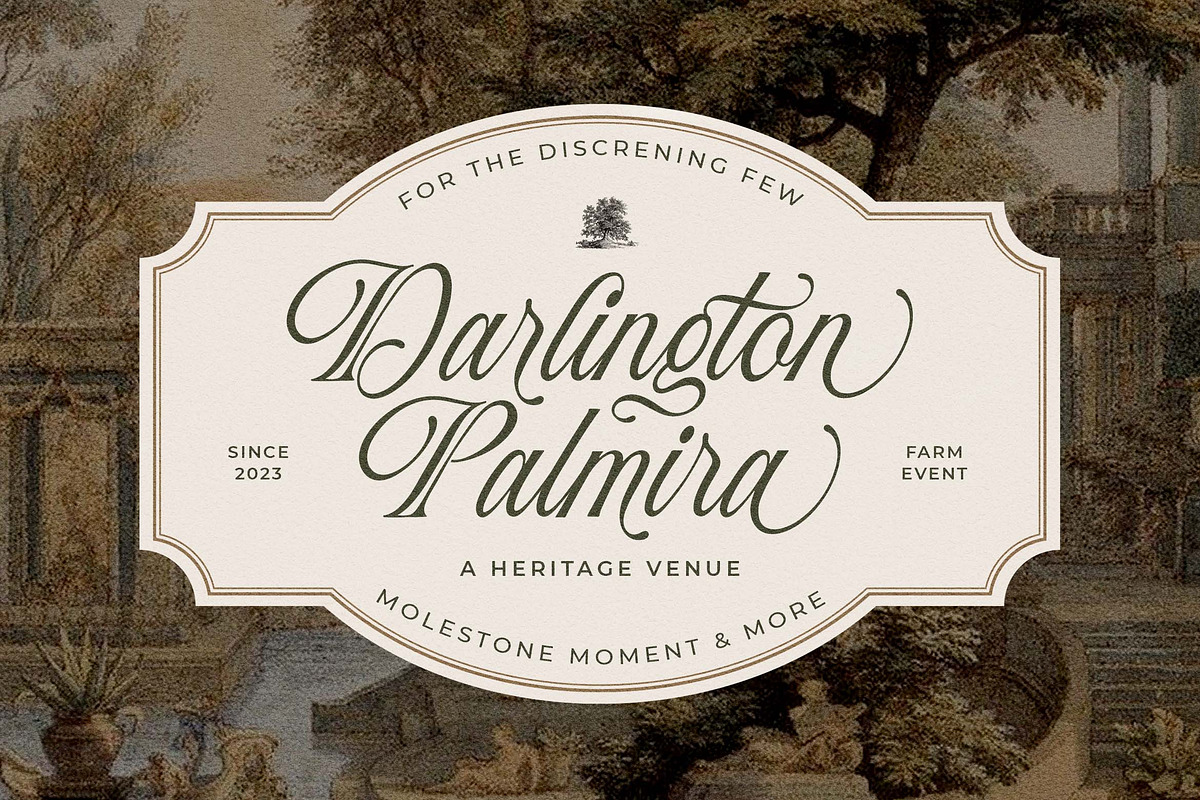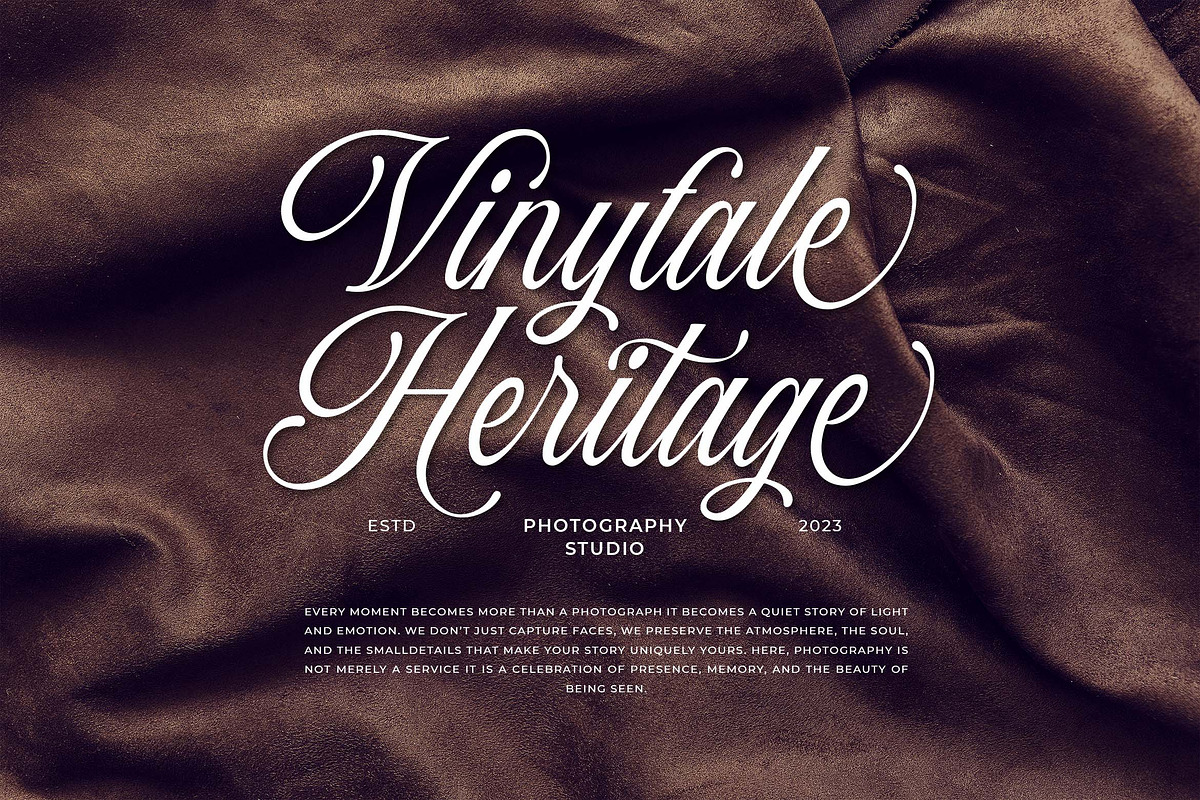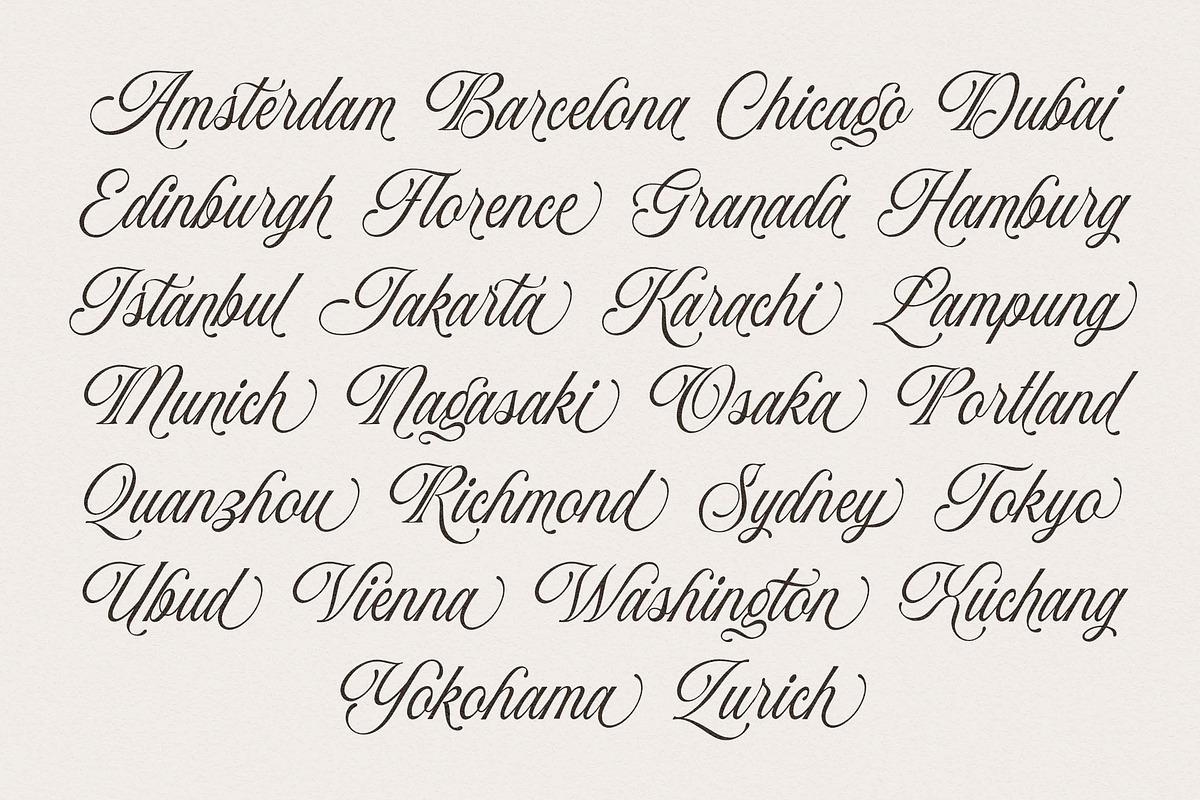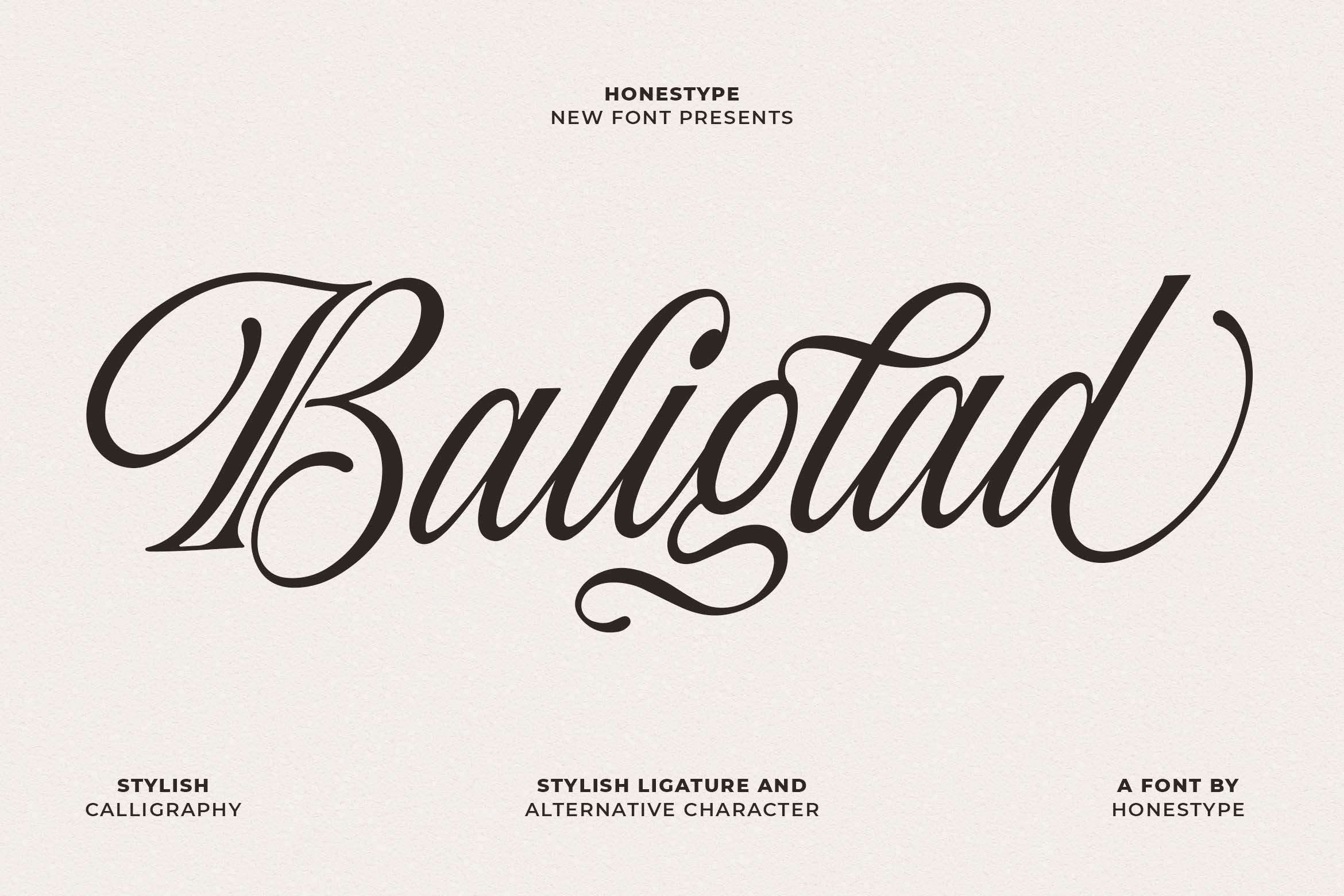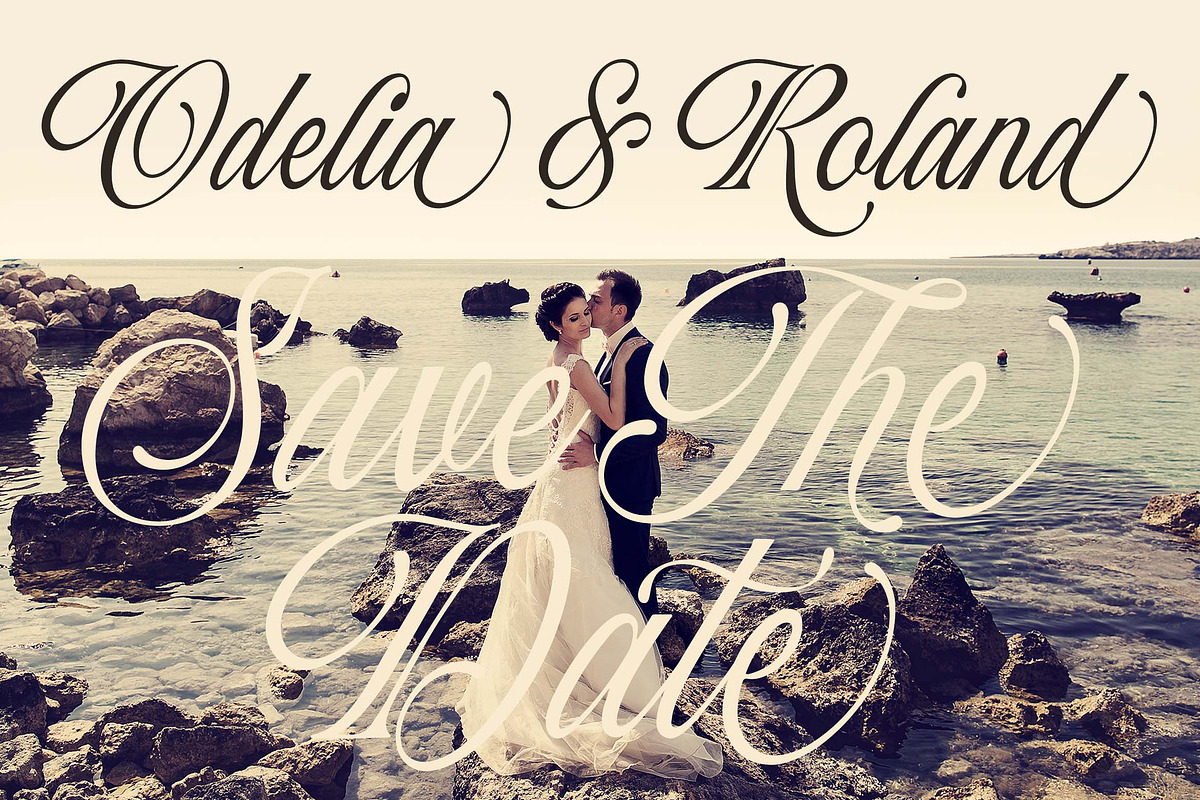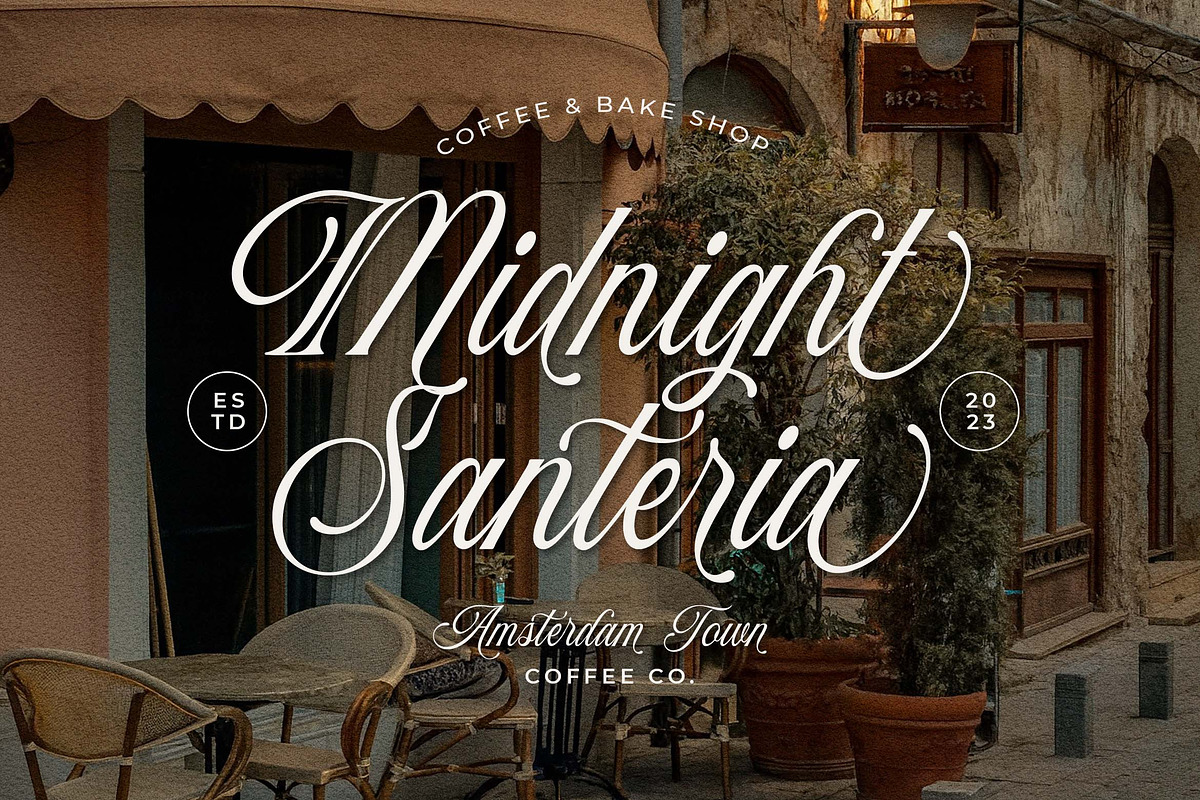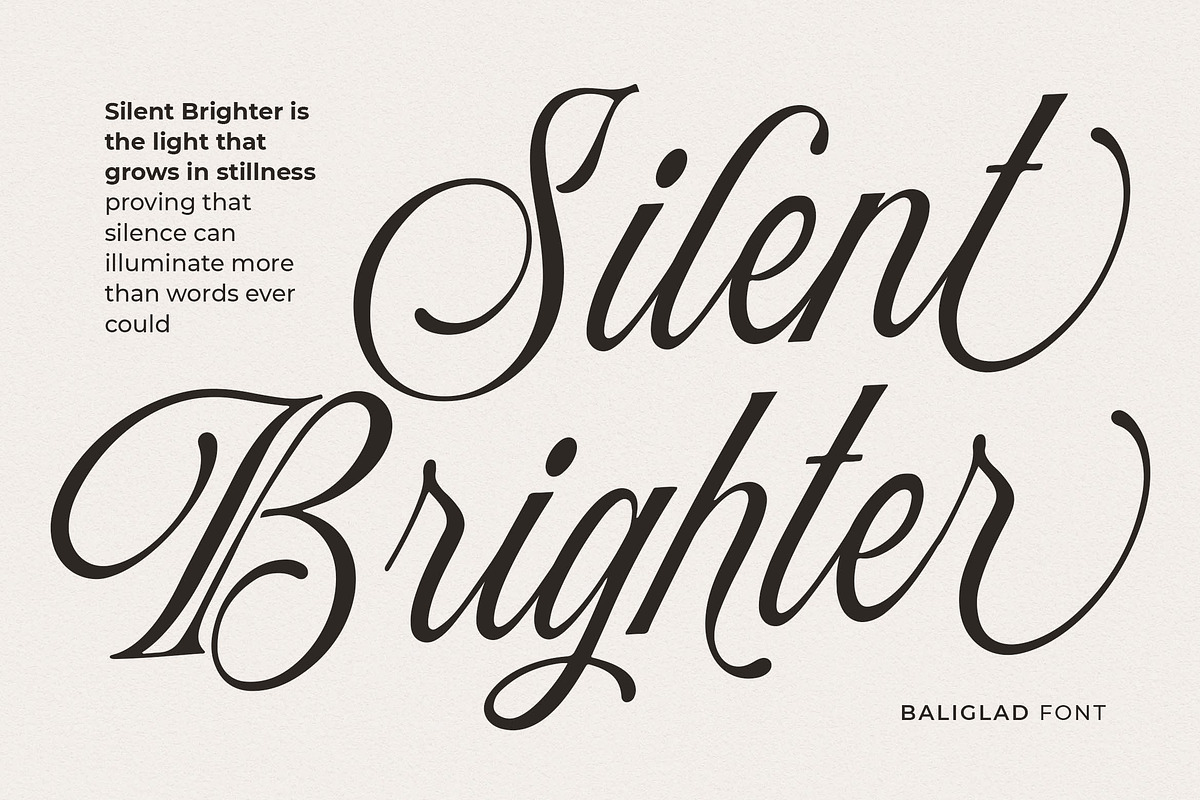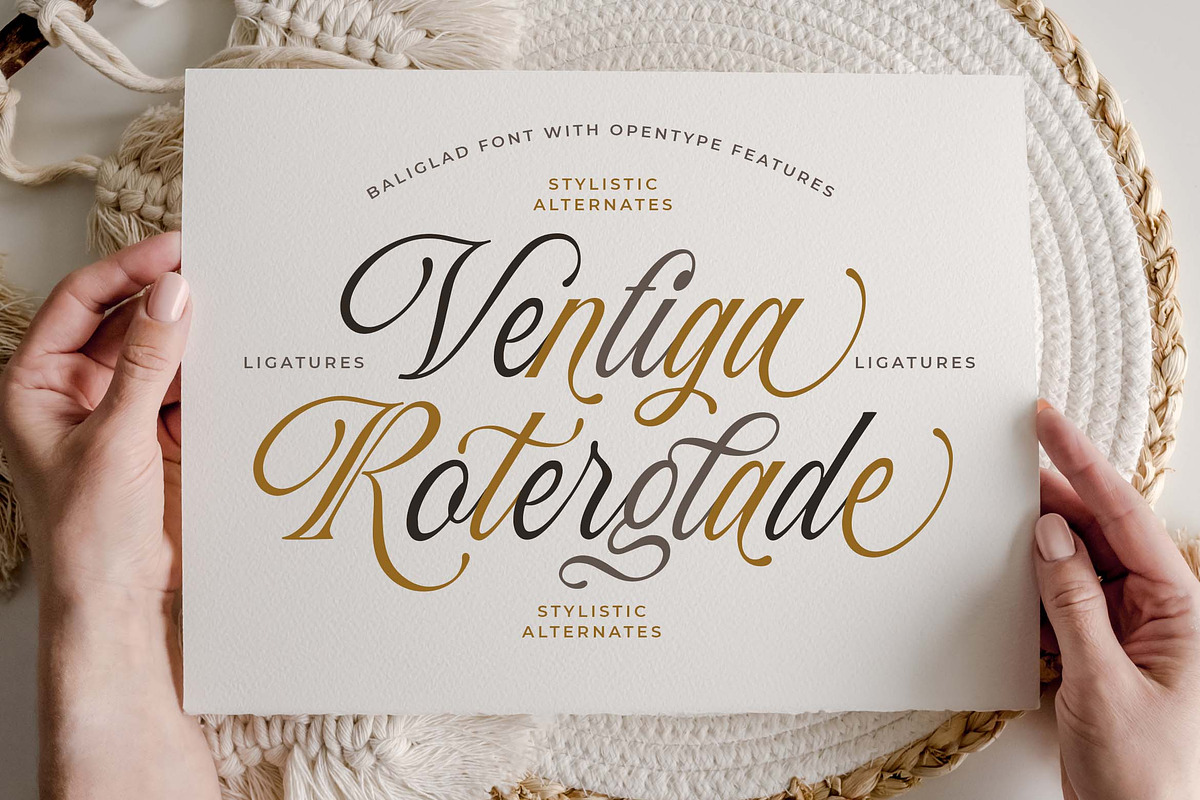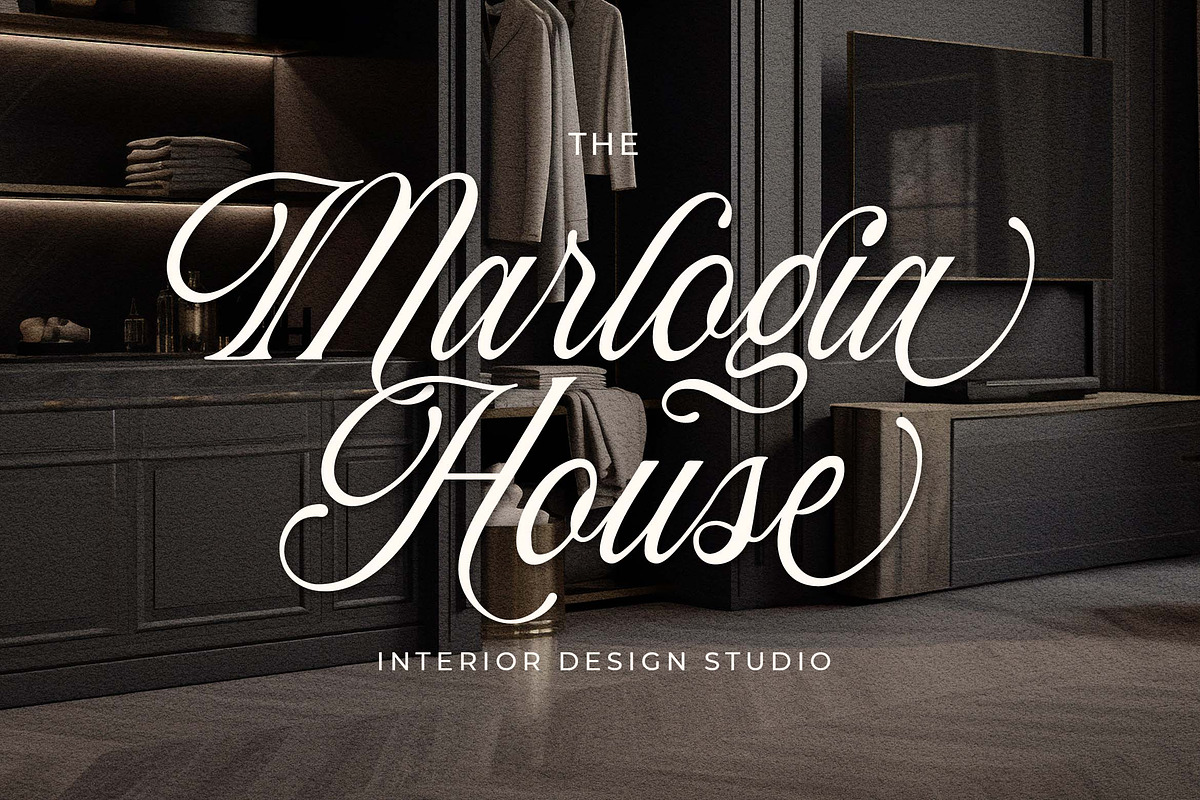
Baliglad – Stylish Calligraphy Font
Baliglad – Stylish Calligraphy Script Font
Baliglad is a stylish calligraphy script font that blends classic elegance with modern charm. Designed with smooth curves, graceful strokes, and beautiful flow, Baliglad delivers a luxurious handwritten feel that instantly elevates any design.
This font features stylish ligatures and alternative characters, allowing you to create unique and expressive typography with ease. Every letter is carefully crafted to maintain balance, readability, and aesthetic harmony—perfect for both bold headlines and elegant compositions.
Baliglad works beautifully across a wide range of creative projects, from branding and logo design to wedding invitations, fashion labels, social media graphics, and premium packaging. Its timeless calligraphic style makes it a versatile choice for designers who want to add a touch of sophistication and personality to their work.
Whether you’re building a brand identity or creating eye-catching visuals, Baliglad helps your design stand out with elegance and confidence.
- Stylish calligraphy script font
- Elegant and smooth handwritten style
- Rich ligatures and alternative characters
- Numerals & punctuation
Perfect for
- Logo & branding
- Wedding invitations & stationery
- Fashion & beauty designs
- Social media content
- Packaging & labels
- Quotes, posters, and editorial design
Baliglad is the perfect choice for designers seeking a luxury script font, modern calligraphy typeface, and elegant handwritten font to enhance high-end creative projects.